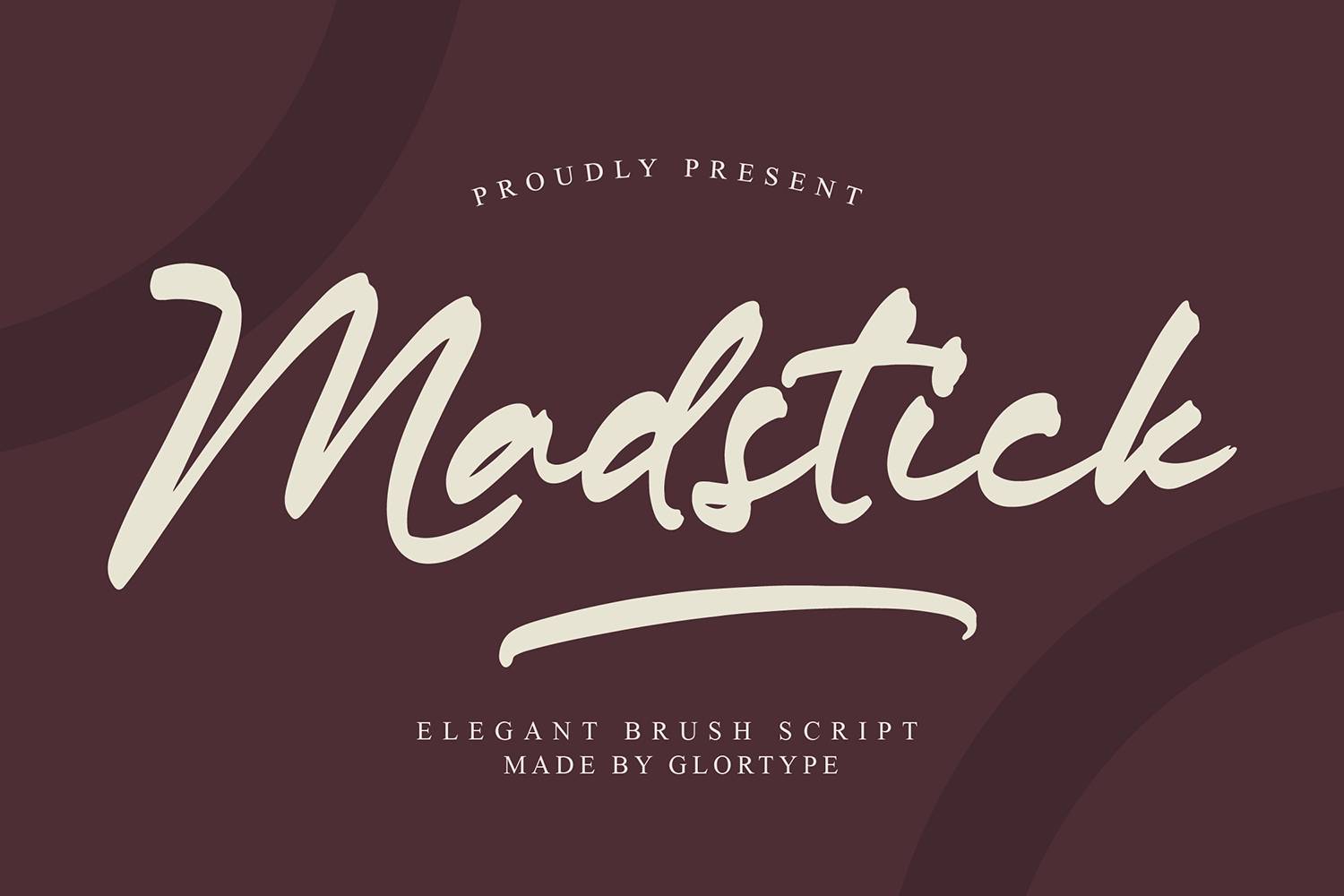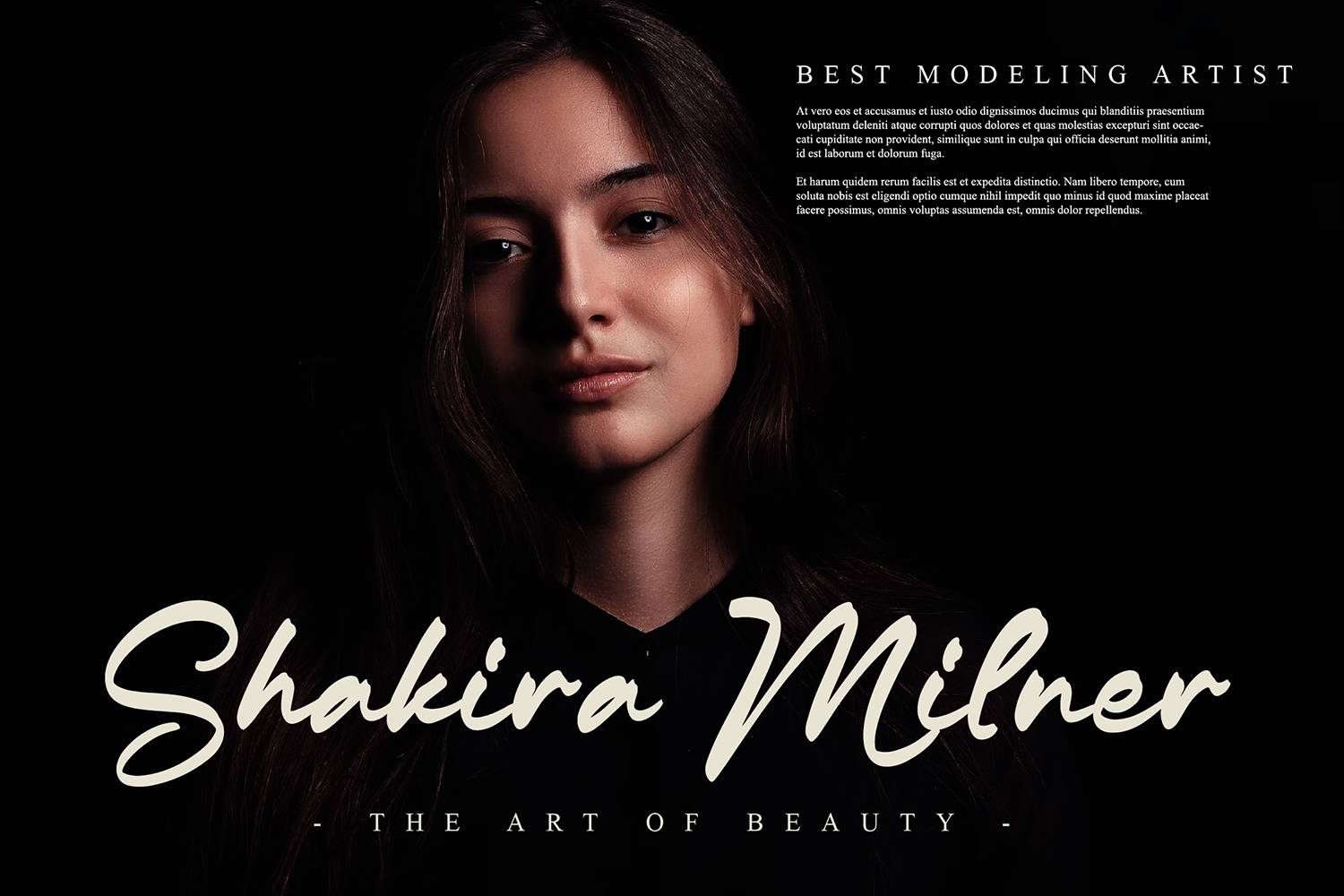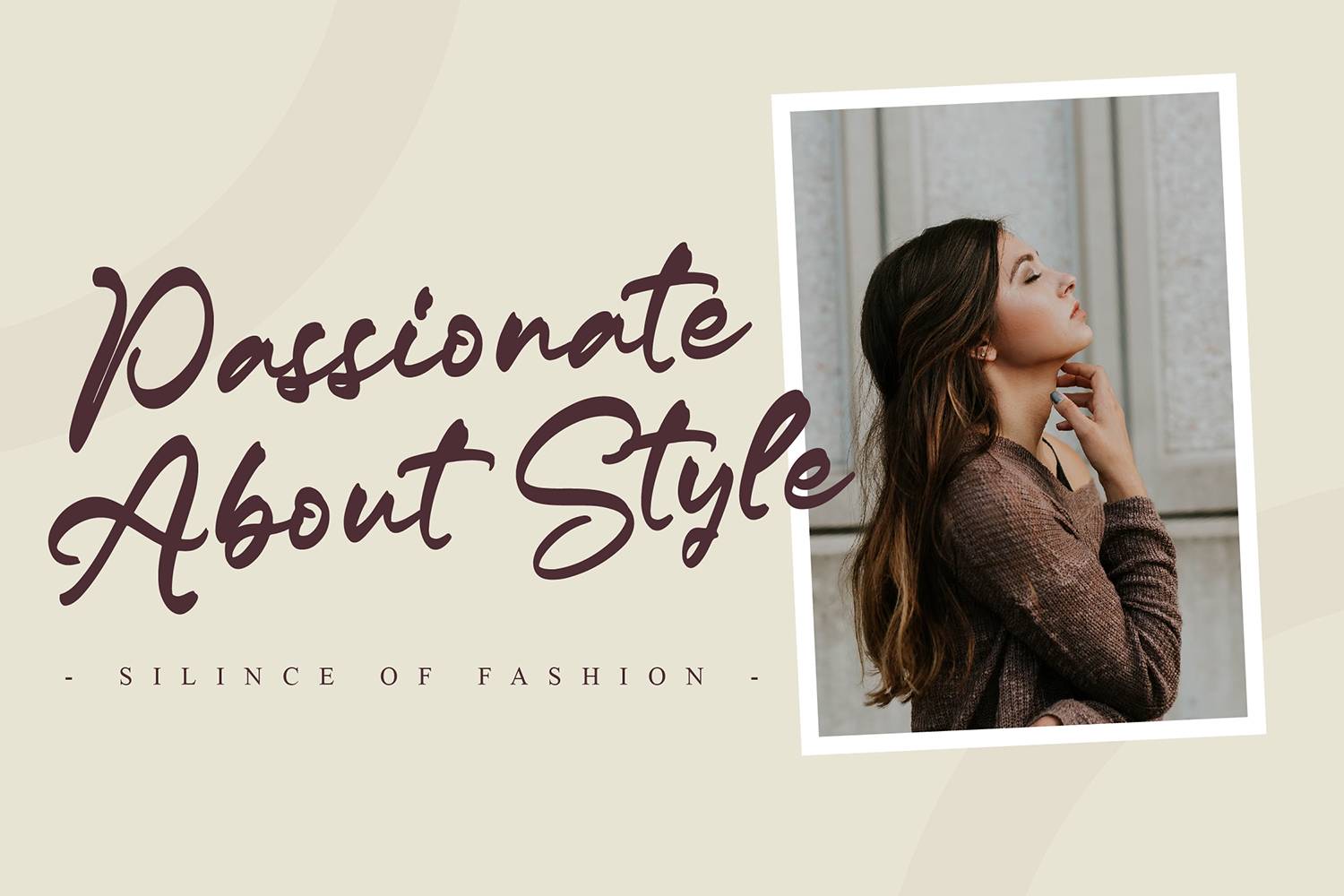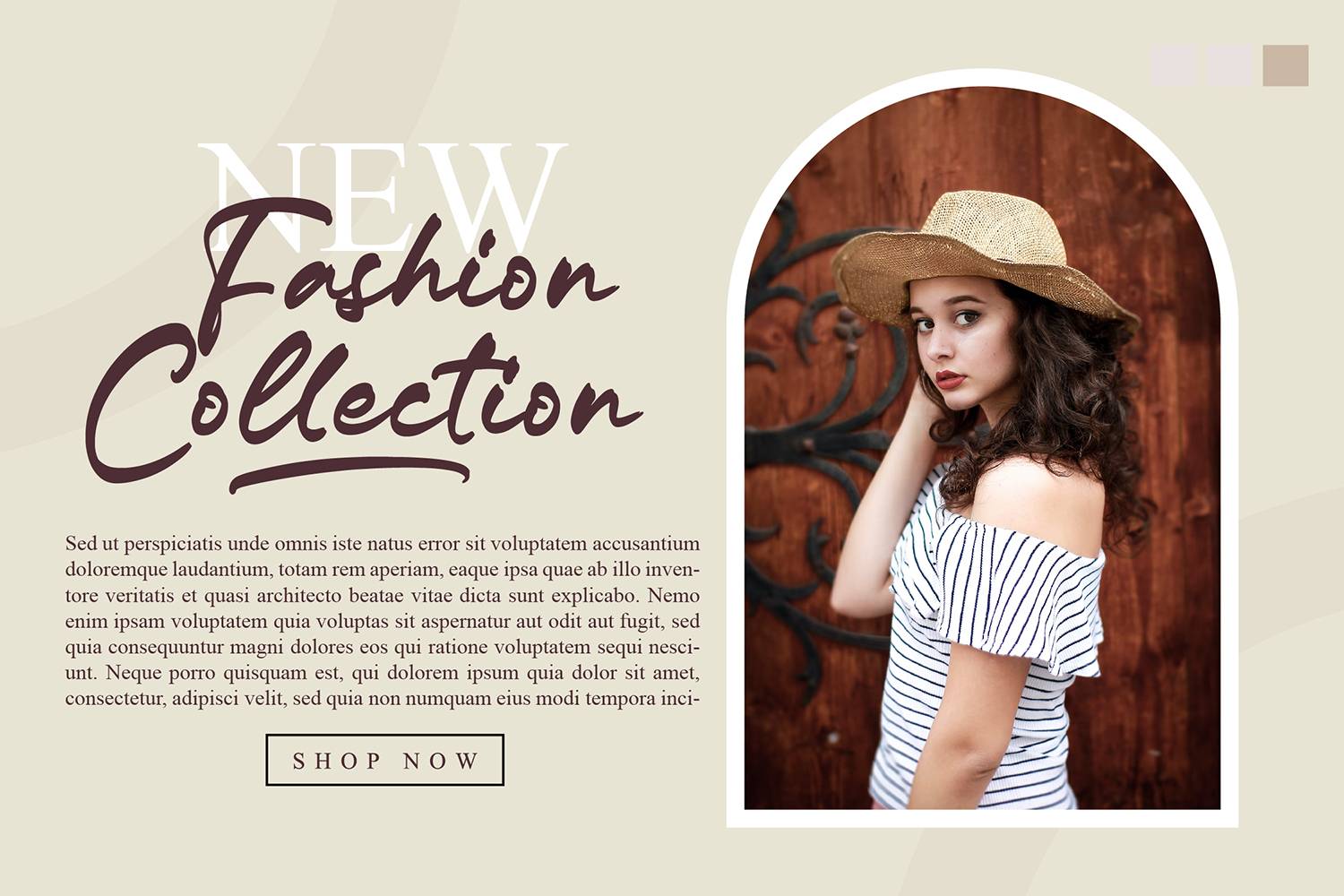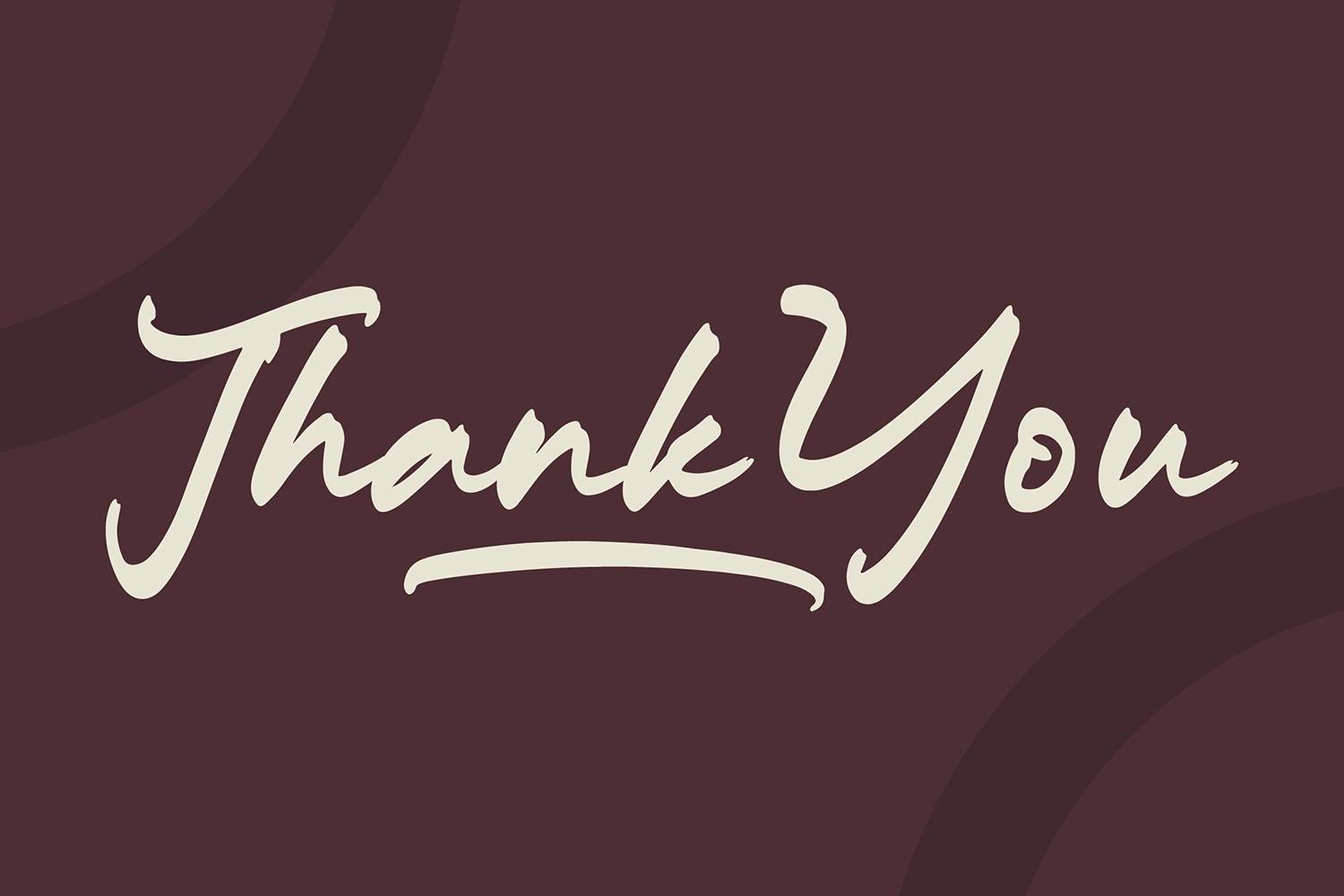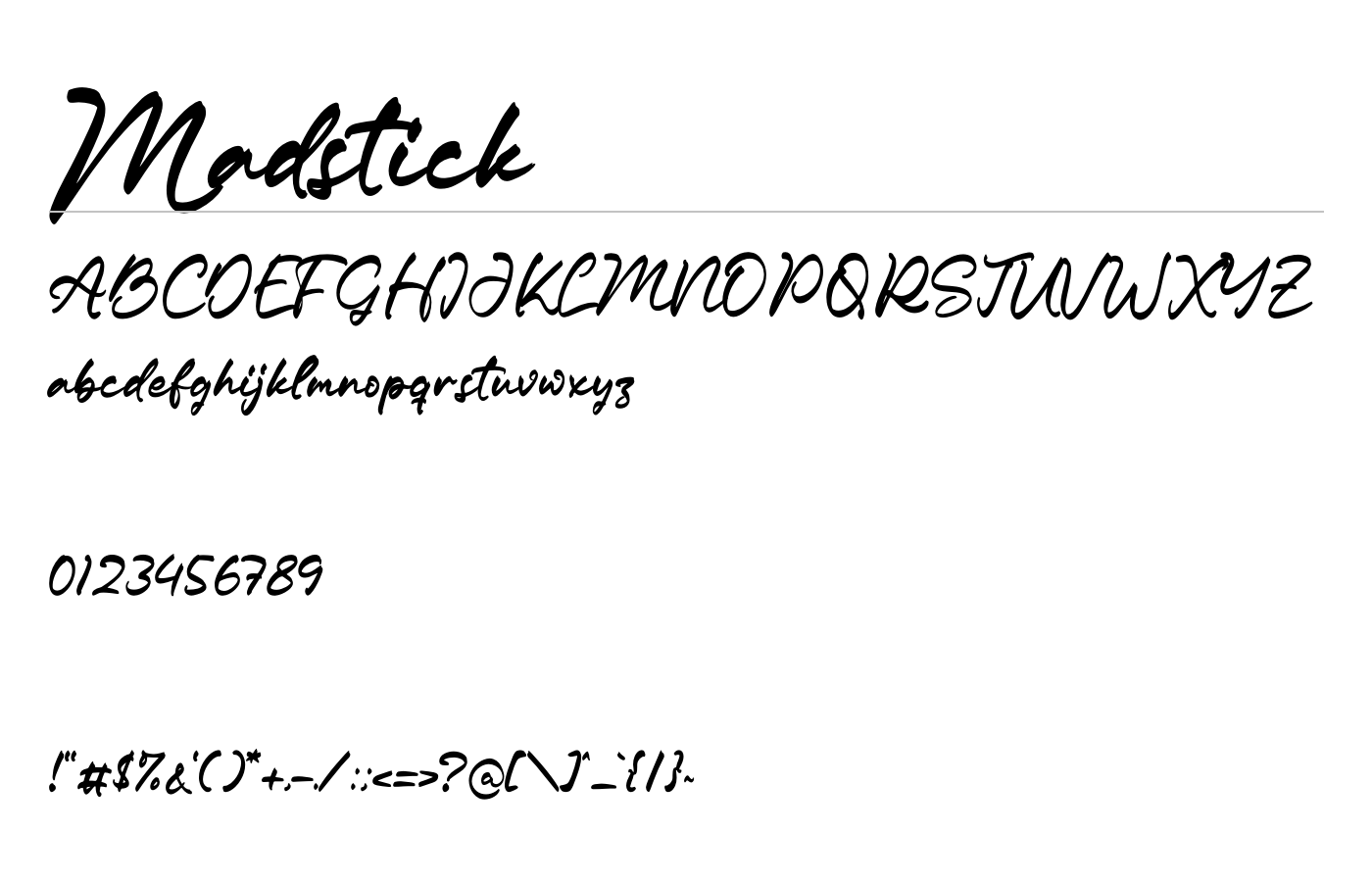
Madstick is a lively and expressive script font with a hand-drawn feel, featuring smooth, fluid strokes that mimic natural brush lettering. Its moderate contrast and casual style make it perfect for creative projects, branding, and invitations that want to convey a personal, approachable, yet stylish vibe. This font shines in headlines, logos, and packaging where a touch of personality and elegance is desired.
Madstick Font